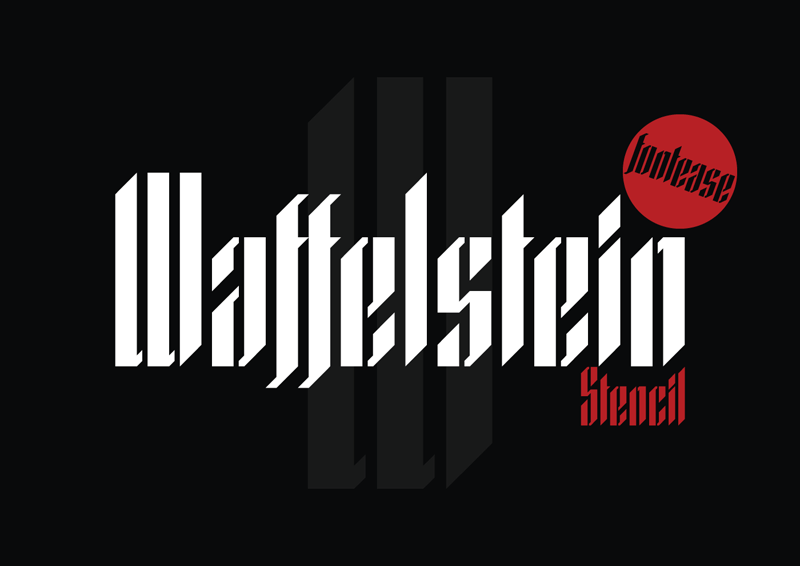
Preview and download Waffelstein Font. Created by Kolyu Kolev in Gothic Modern styles with 100% Free license.
Waffelstein is a modern geometric typeface inspired by waffles, old fraktur fonts, heavy rock bands, PC games and the graphical perspective. Waffelstein-Stencil is FREE stencil demo of Waffelstein with limited amount of glyphs. Have fun! Enjoy free font! :) If you feel like supporting us, please buy Waffelstein here: https://www.myfonts.com/fonts/fontease/waffelstein/ Thank You! :) Visit us on: https://fontease.com/ https://www.behance.net/fontease |